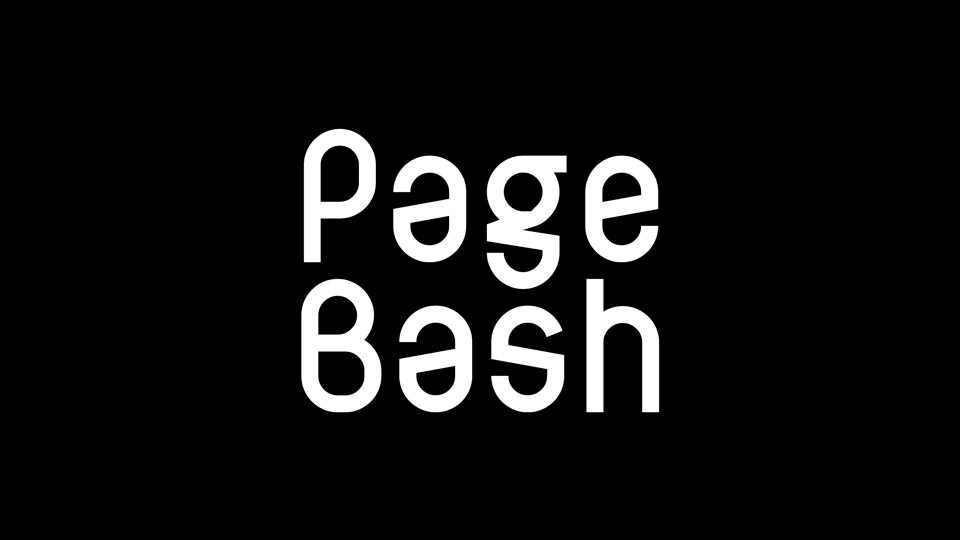
Download Page Bash font, a creative geometric modular typeface with a unique personality. Page Bash font perfectly fits for posters, headlines, logos and other artworks.
Designer: Union Sozialer Einrichtungen gGmbH